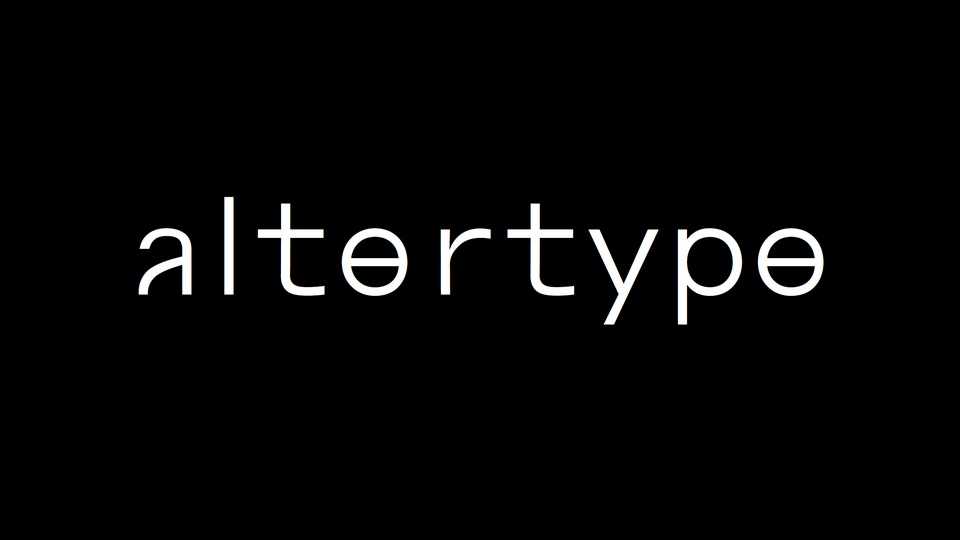
Download Altertype font, a minimalist sans serif typeface focused on simple and efficient geometric forms. Altertype can help to communicate in a more radical way by deleting available character sets such as capital letters and accents.
Designer: Simon Renaud